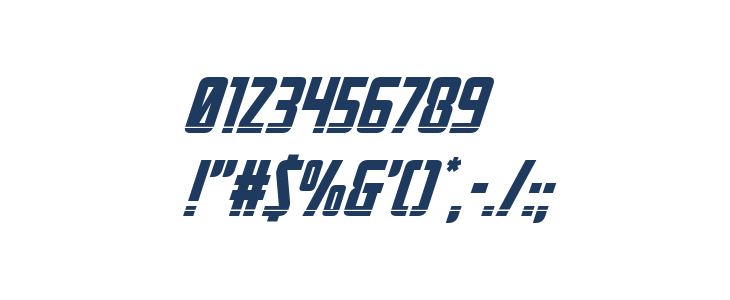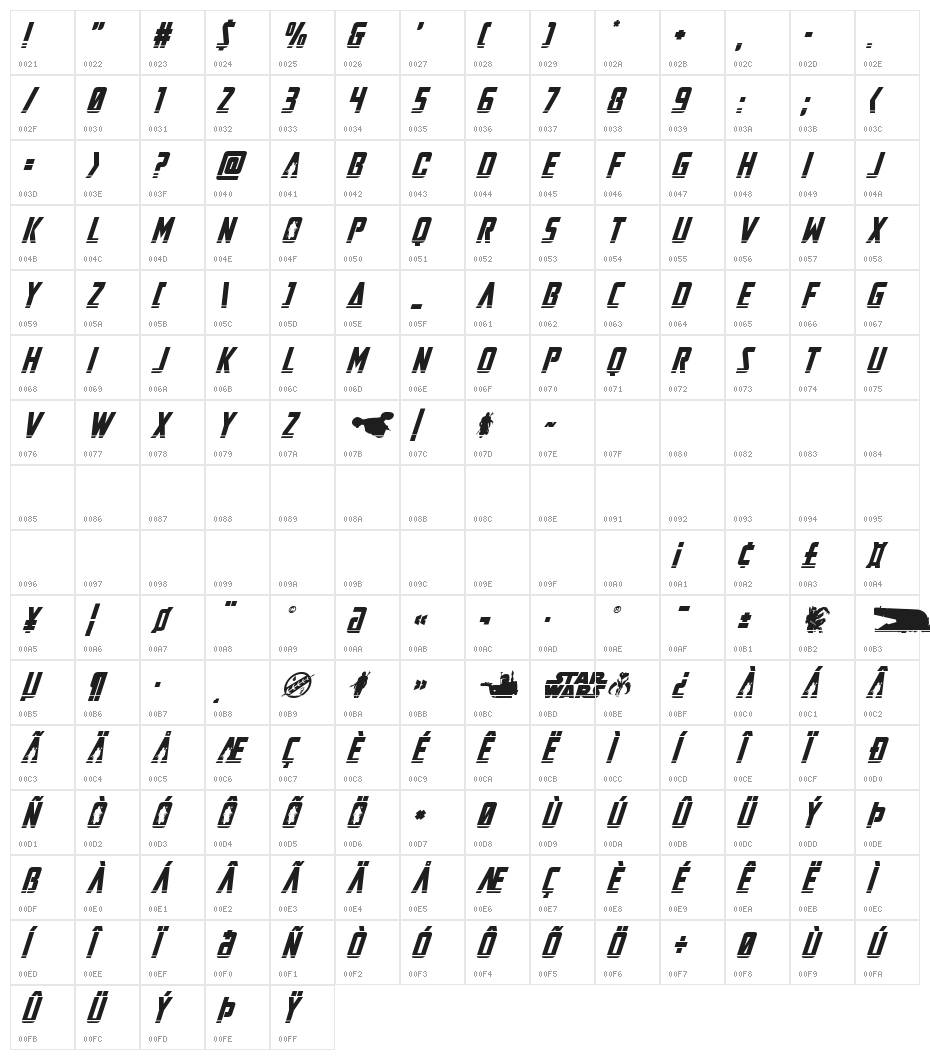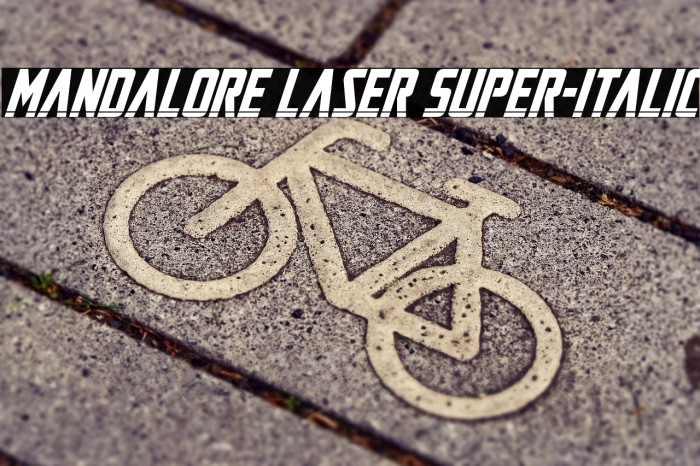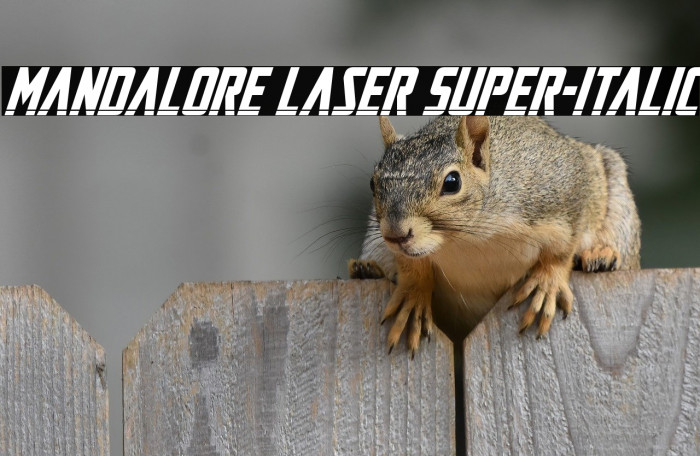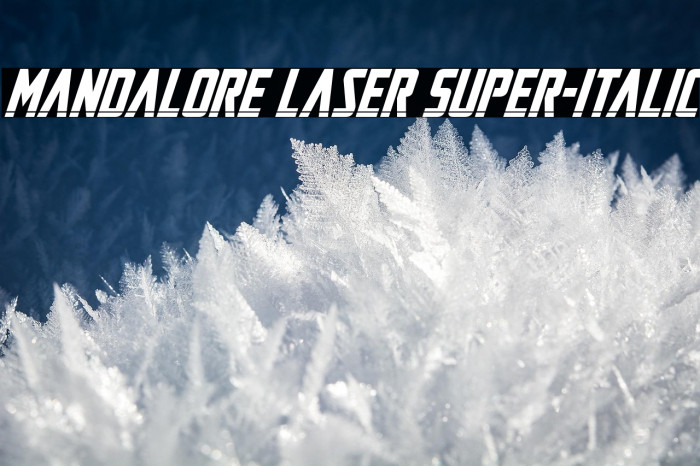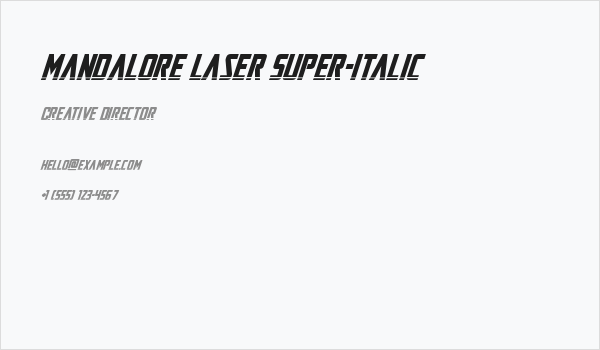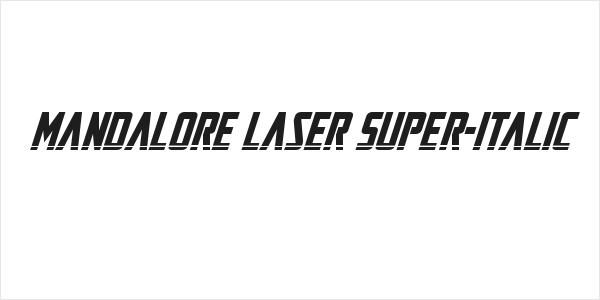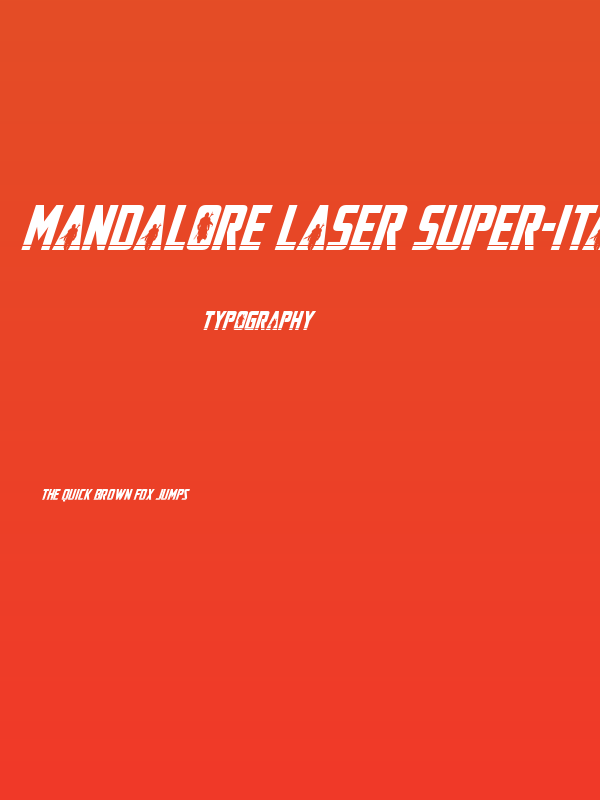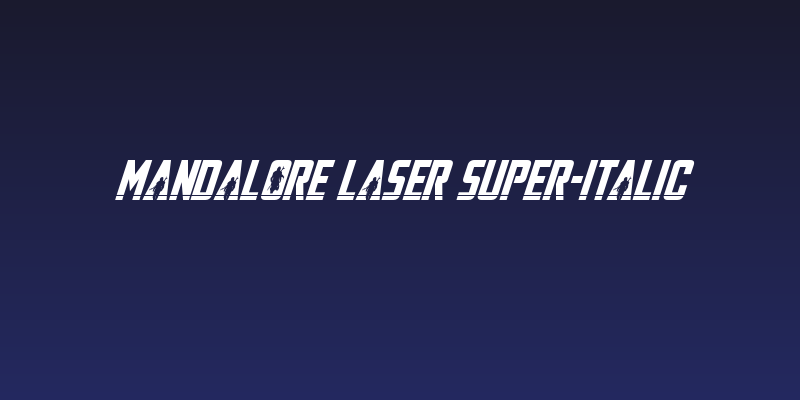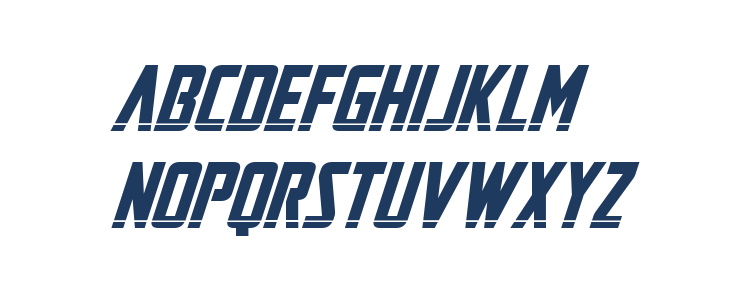
Mandalore Laser Super-Italic Font
Mandalore Laser Super-Italic Description
This font features a bold, futuristic design with sharp angles and a distinct italic slant, giving it a dynamic and energetic appearance. The characters are tightly spaced, enhancing the compact and streamlined look. The uppercase letters are particularly striking, with some characters incorporating unique cutouts and geometric shapes. The numbers and special characters maintain the same bold and angular style, ensuring consistency across all elements. This font is ideal for projects that require a modern and edgy aesthetic, such as sci-fi themed designs or tech-related branding.
| Proposed Projects | Ideal for sci-fi themed designs, tech branding, video game titles, and futuristic posters. |